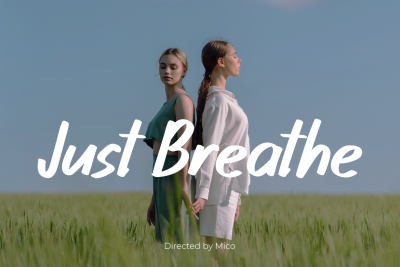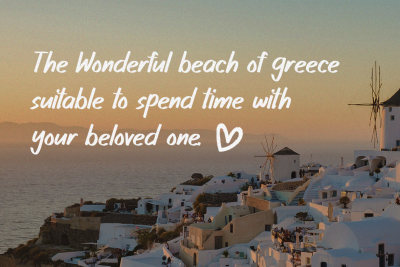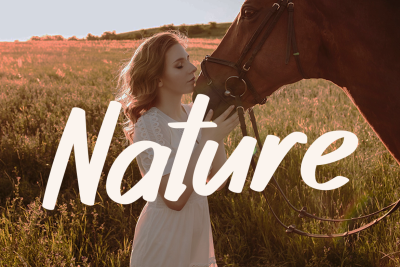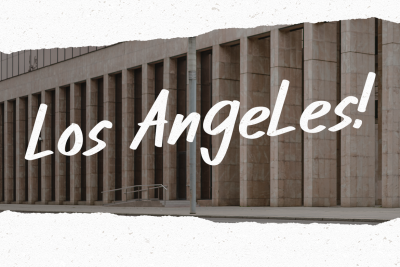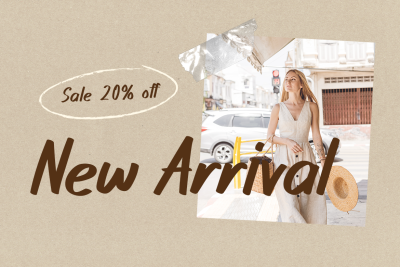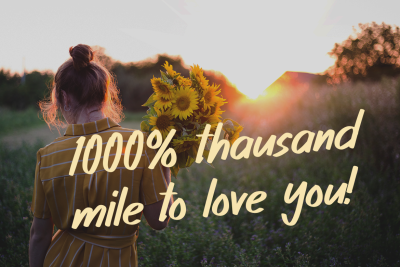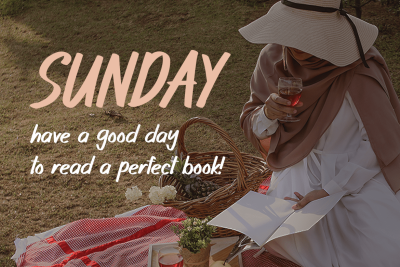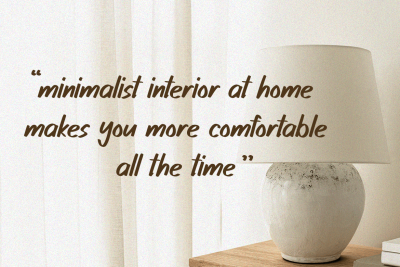
Instagram Font Ujung Senja is a stunning and versatile script font. It beautifully captures the warmth and serenity of a sunset moment. Moreover, with smooth, flowing strokes and a modern hand-lettered style, Ujung Senja brings elegance to any design project. Perfect for adding a personal, artistic touch, this font combines readability with aesthetic appeal. Therefore, social media creators and designers choose it frequently.
The soft curves and bold lines of Ujung Senja evoke calm and nostalgia. Furthermore, it mirrors the peaceful beauty of twilight. This font enhances Instagram stories, YouTube thumbnails, and printable graphics. Additionally, it works seamlessly for banners, advertisements, and digital greeting cards, making it a versatile tool for various projects. Its handwritten style delivers an authentic, approachable feel while maintaining a polished and professional look. By integrating Ujung Senja, users can easily add a unique charm to both online and offline designs. This font’s versatility also ensures that it can adapt to both formal and casual designs, making it suitable for a wide variety of occasions.
Ujung Senja perfectly suits social media influencers, content creators, and small business owners. It helps create eye-catching visuals with a modern flair. Specifically, lifestyle, fashion, travel, and wellness brands benefit from its versatility. Whether designing Instagram posts, branding kits, or promotional materials, Ujung Senja conveys creativity and individuality.
Additionally, this font enhances wedding invitations, greeting cards, and personal projects. Freelance designers, bloggers, and artists rely on it to add unique charm. Moreover, hobbyists and DIY enthusiasts can use it for scrapbooking, personalized stationery, or home decor projects. If you need a font that combines modern trends with timeless beauty, Ujung Senja is the perfect fit. Its adaptability ensures that it complements a wide range of styles, from minimalistic to vibrant, making it a valuable asset for any creative toolkit. Furthermore, its ability to convey both warmth and sophistication allows it to elevate any design, making it memorable and impactful.